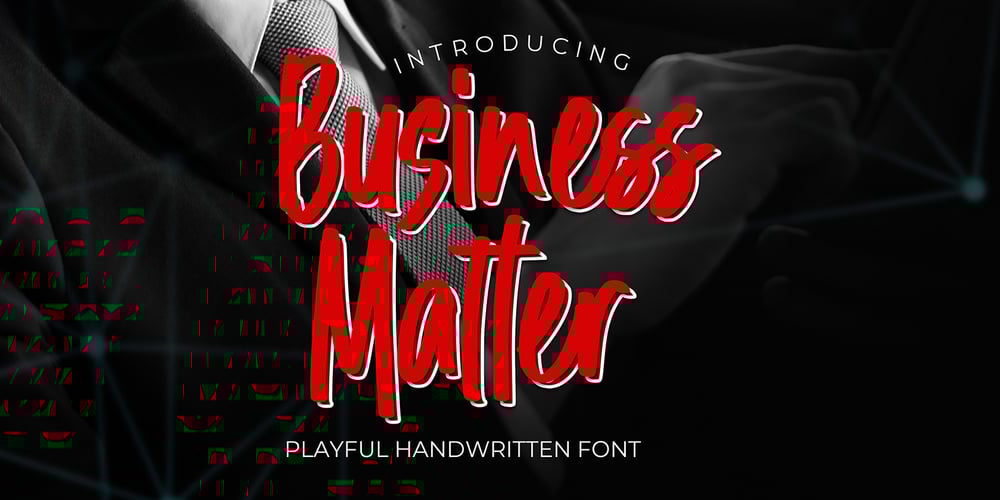
Business Matter
Business Matter Font Family was designed by Abdul Malik Wisnu, Anang Fibriyanto and published by Gassstype. Business Matter contains 1 styles and family package options. Business Matter is a Playful Handwritten Font that will make your designs look modern, unique and fun.It’s perfect for labels, quotes, posters, DIY projects, branding, packaging, greeting cards, websites, photography overlays, signs, window art, scrapbooking, tags and so much more!